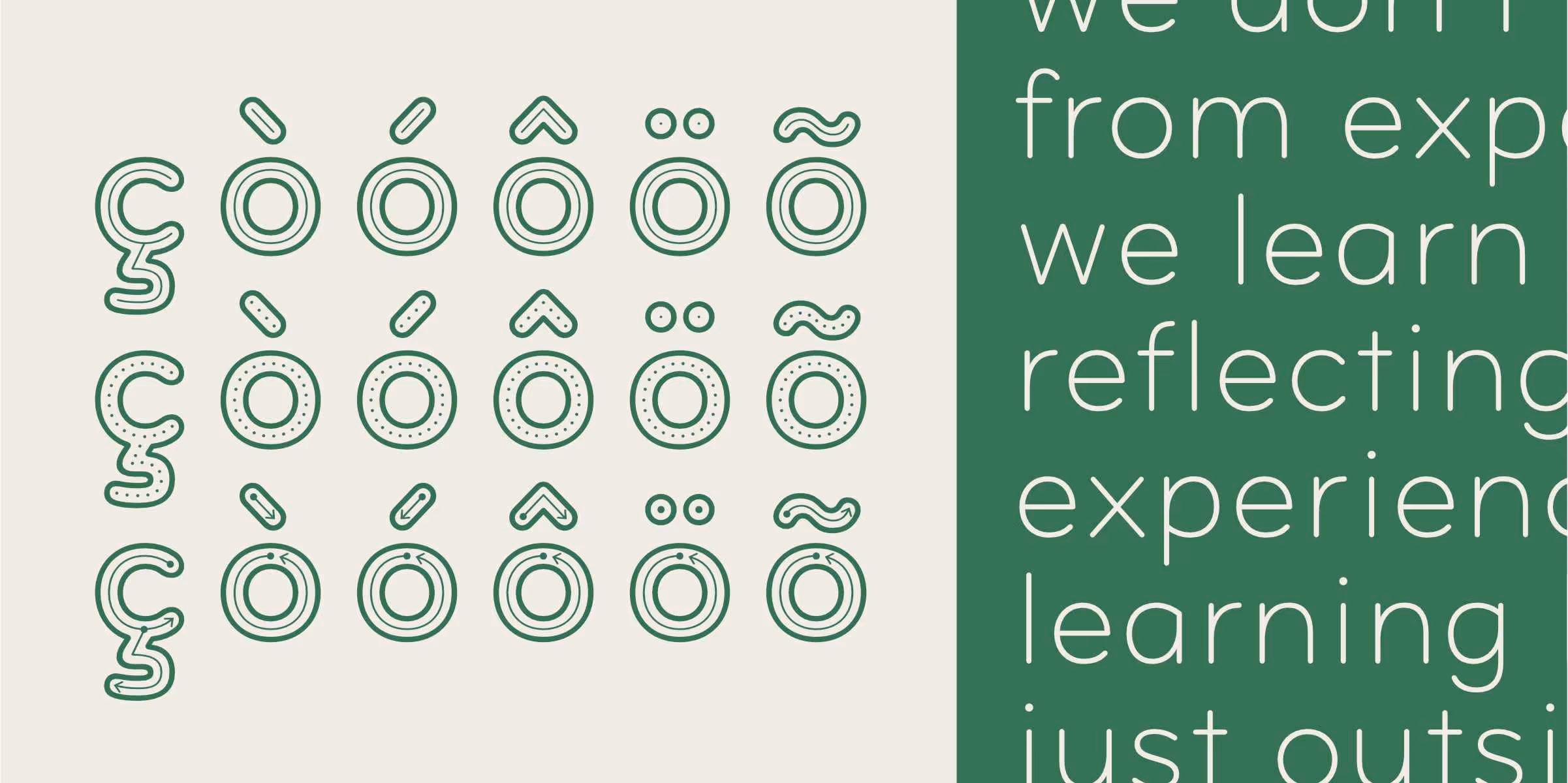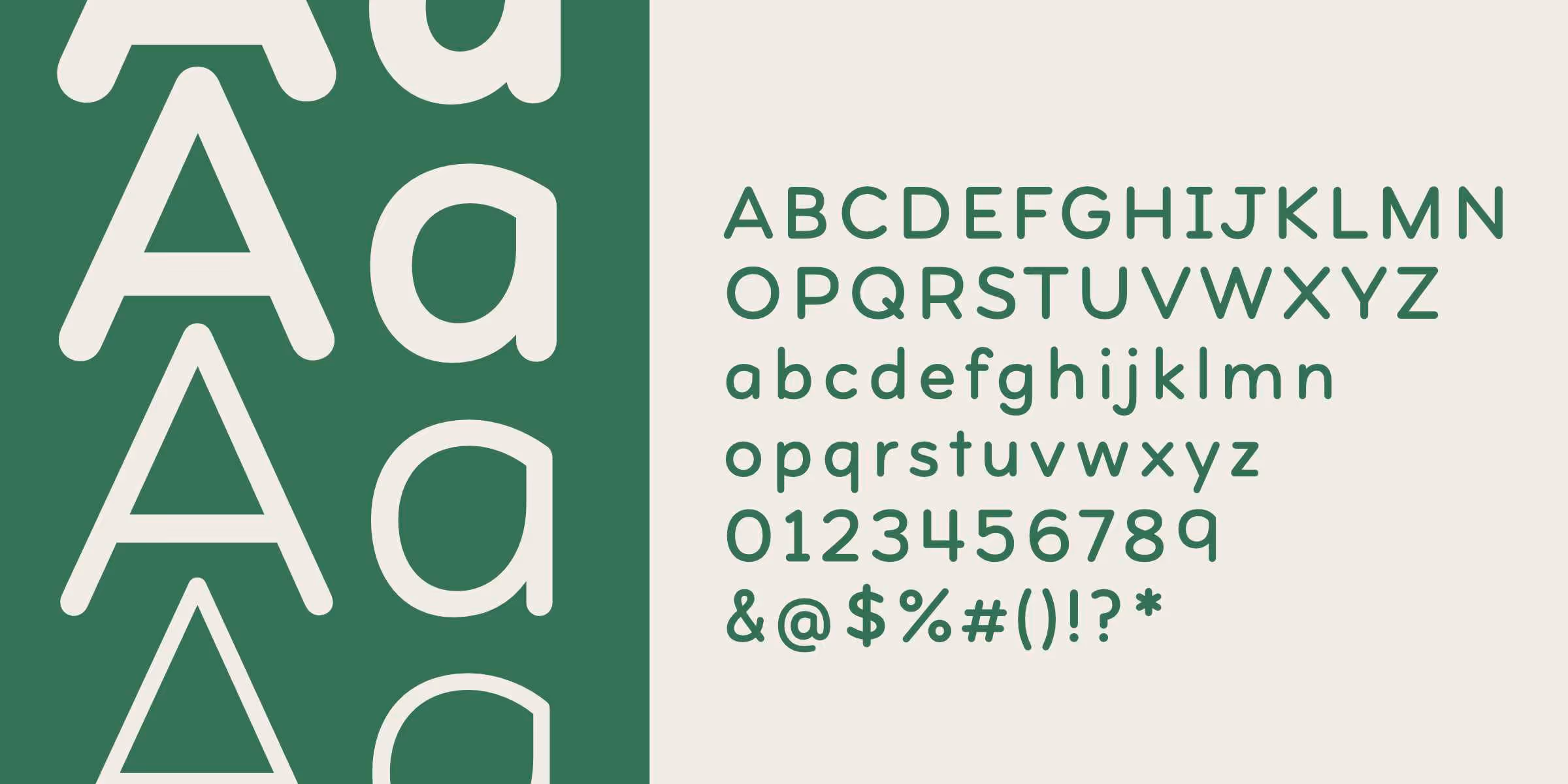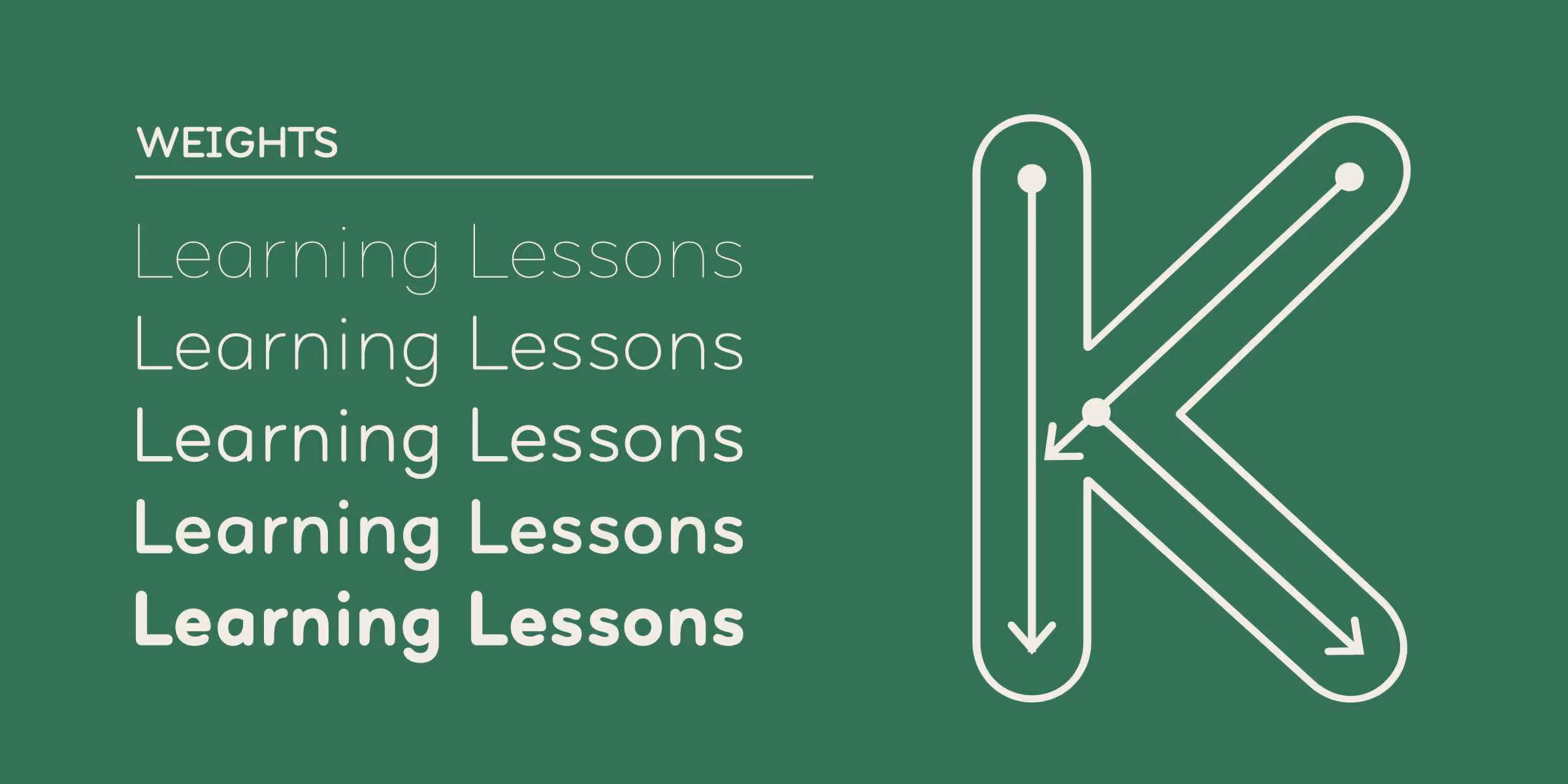
Formulate, A rounded font made from model letters.
Formulate Typeface Family
Formulate aims to provide shining examples of modern typographic shapes for young people learning how to write and read. The design process was an exploration in finding the basic shape of a letter as it exists in today’s context.
The weights of Formulate in light letters on a dark green background. There is a large K demonstrating the outline style with arrows inside.Styles of formulate listed in light coloured text on a dark green background.
Features
OpenType Features
ss01 Modified ltq
liquid tea liquid tea
ss02 double storey
aghast aghast
ss03 Serifless caps
JINGLE JINGLE
s04 Alternate 9
6,947 6,947
Layered Font
Formulate contains layer styles that can all be stacked on top of each other to customize the look of the letters. Some precomposed versions are available in the Decor styles.
Uppercase and lowercase A's that show the different weights and a demonstration of the full alphabet.Examples of the diacritic marks that add language support.
About Formulate
Formulate aims to provide shining examples of modern typographic shapes for young people learning how to write and read. The design process was an exploration in finding the basic shape of a letter as it exists in today’s context. I researched how children are taught to write and how the examples and references given to them can help or hinder this milestone.
I also studied some of the neatest handwriting I could find and found that much of it followed modern typographic conventions and construction like high x-height and even proportions. These were features that I didn’t see much of in my review of existing alphabet and writing worksheets, which meant there was a gap for me to fill.
The variety of styles in the Formulate family are designed to help teachers (or homeschooling parents) create modern practice sheets for their students. Of course, the origins and intention of a typeface shouldn’t be a limitation, so even if you are not involved with the design of teaching materials, Formulate is great to try out in any design where you need friendly, rounded forms.